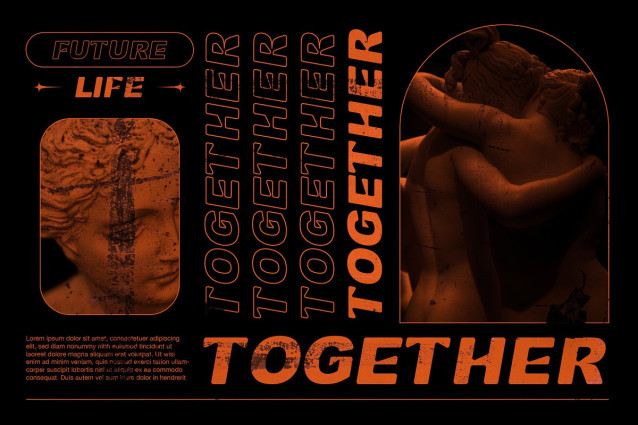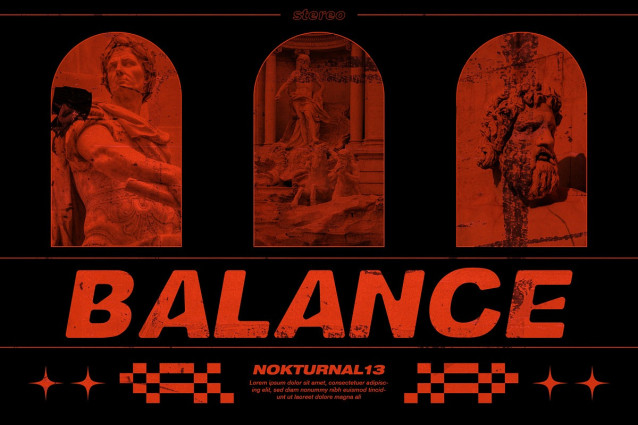
Bansel Font
Bansel Font is a bold and stylish sans-serif typeface with a unique personality, perfect for making a strong visual statement. Designed with distinctive letterforms and a modern edge, Bansel is ideal for branding, posters, headlines, album covers, apparel, and anything that demands attention.
Its sharp, clean lines and creative design details make it stand out in both digital and print formats. Whether you’re working on a music project, fashion campaign, or creative editorial, Bansel brings an original and confident touch to your typography.